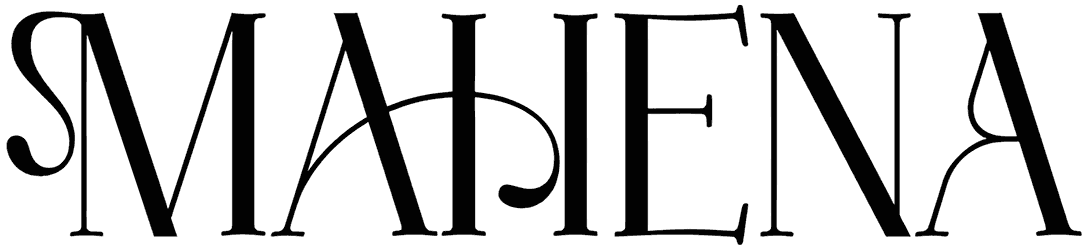
Mahena Font
After seeing what Mahena is capable of, you’re going to be on the edge of your seat, waiting for the next luxury design project that comes around. The endless beauty of it makes this ligature font such a great choice as a logo font for several lines of business.
Think about it. Wouldn’t you be completely charmed if you were handed a restaurant business card, art studio poster, skincare products, or something like that with this swash font written on it?